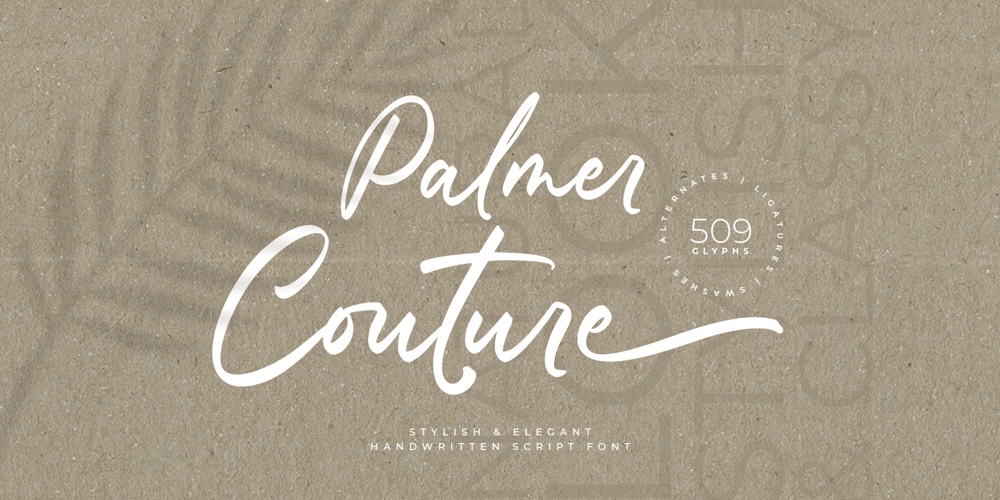
Palmer Couture Font Family was designed by Ainun Jinan and published by Jinan Studio. Palmer Couture contains 1 styles and family package options. Palmer Couture a stunning, sophisticated typeface that exudes elegance and charm, featuring lots of alternate characters, ligatures, and beautiful strokes. This font effortlessly injects a touch of charm into your designs, perfect for use for wedding-themed design projects, invitations weddings, Valentine’s creations, design branding, luxury product packaging, promotional materials, quotes, and any project that requires a touch of style and elegance. Its versatility shines through with seamless support for multiple languages, ensuring the perfect blend of beauty and functionality in every application.Features A set of uppercase and lowercase glyphs Number, symbol, and punctuation Multilingual Support Alternates, ligatures, and swashes PUA encoded Type j_1 until j_7 to features swash, ligatures will automatically replace the standard letter pairs whenever available, when using any OpenType capable software.